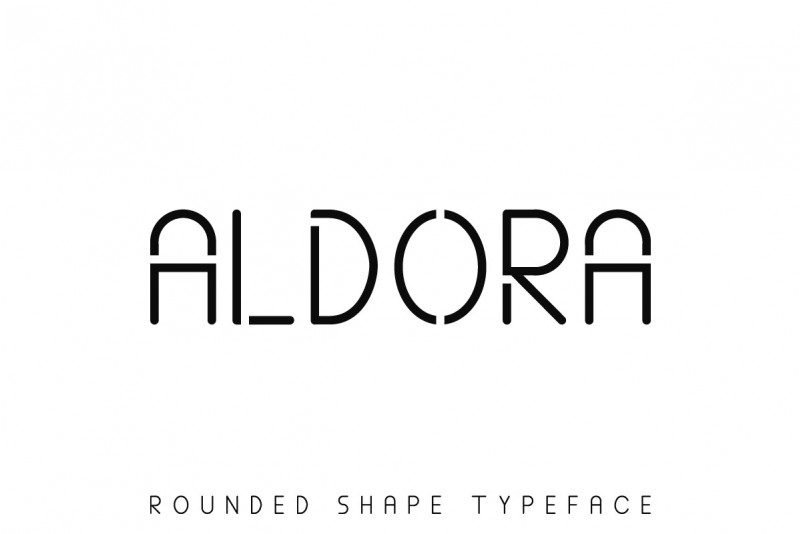
Aldora Futuristic Font
Aldora Futuristic Font is a serif display font, that comes great for many designs purpose : logo, headline, shirts, branding, business card, etc